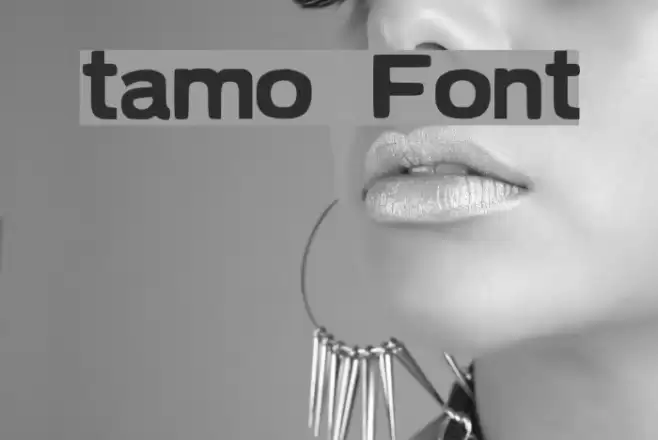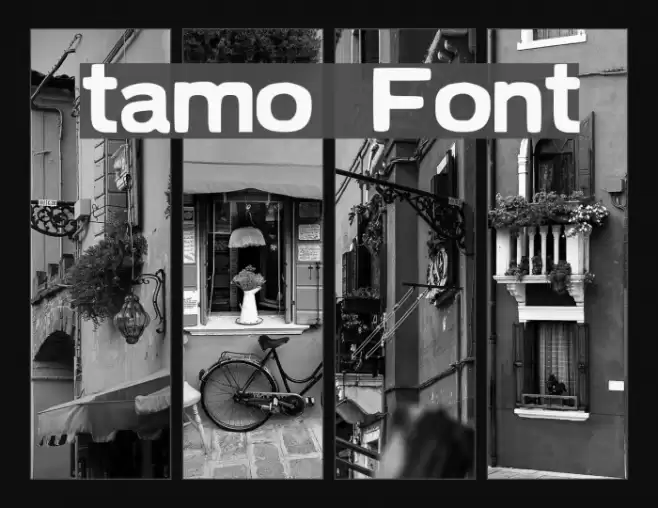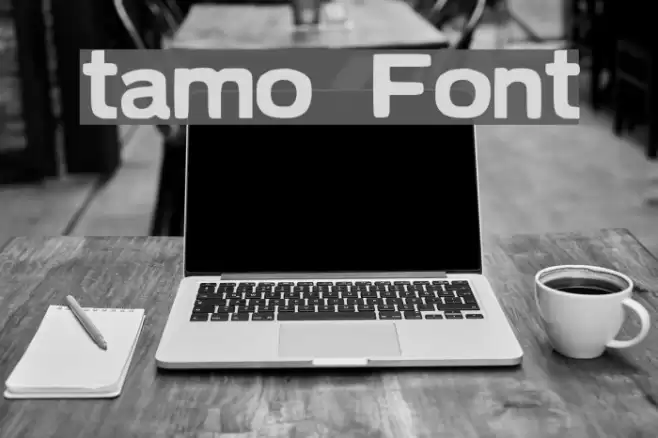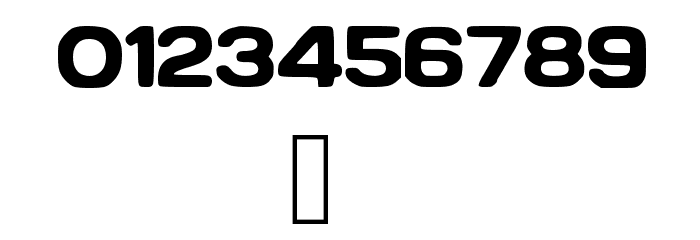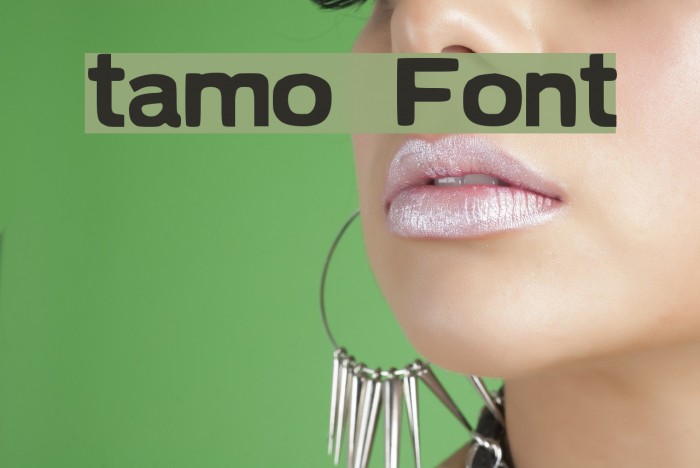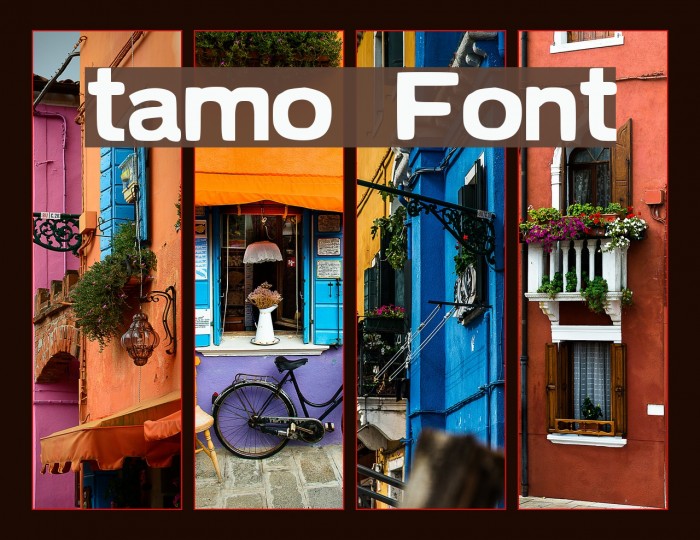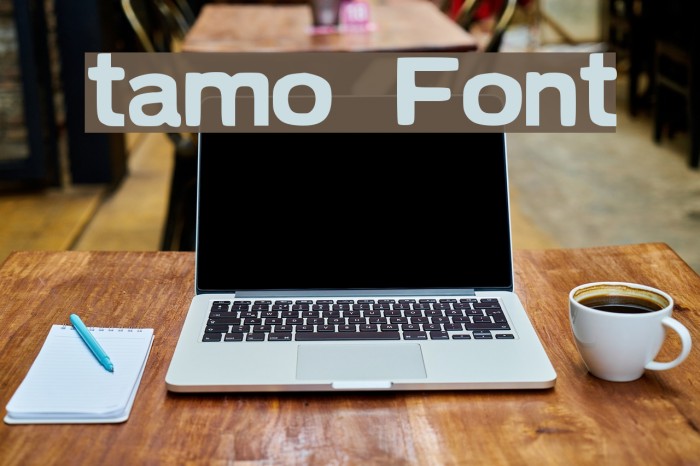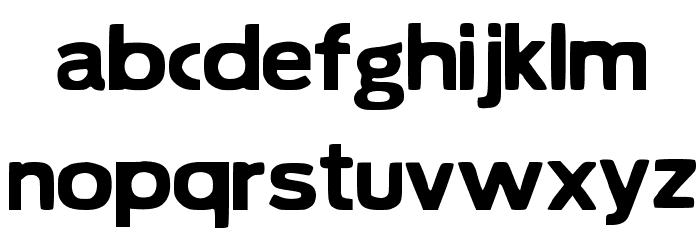
tamo Font
tamo Description
This font features a bold and rounded design, characterized by its smooth curves and uniform stroke width. The uppercase letters are slightly condensed, giving a compact appearance, while the lowercase letters maintain a consistent height, enhancing readability. The numerals are well-proportioned, aligning seamlessly with the overall style. This font exudes a modern and friendly vibe, making it suitable for various applications. The special characters are designed with the same rounded aesthetic, ensuring a cohesive look across all glyphs.
A bold, rounded font with smooth curves and a modern appearance from Distorted Eroded fonts.
- Proposed Projects: Ideal for branding, advertising, and digital media projects where a modern and approachable look is desired.
- Use Case: Headlines, Logos, Branding